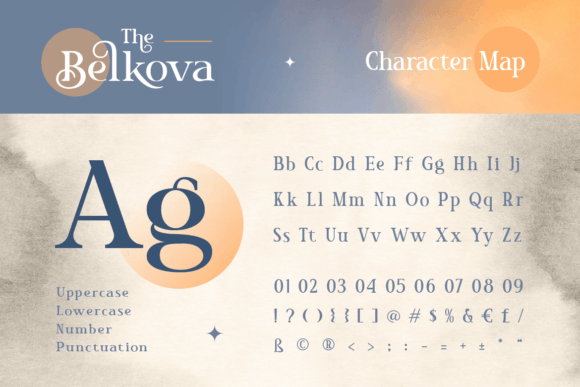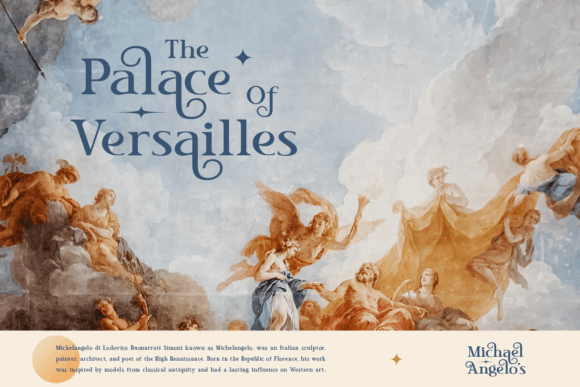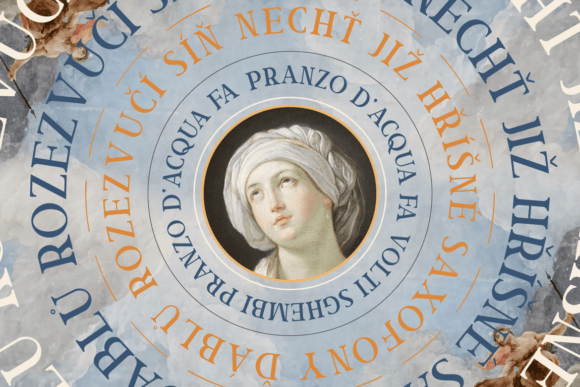
Belkova Font
Belkova is a classy and stylish serif font. Masterfully designed to become a true favorite, this luxurious typeface will instantly enhance any creation you wish to add it to!